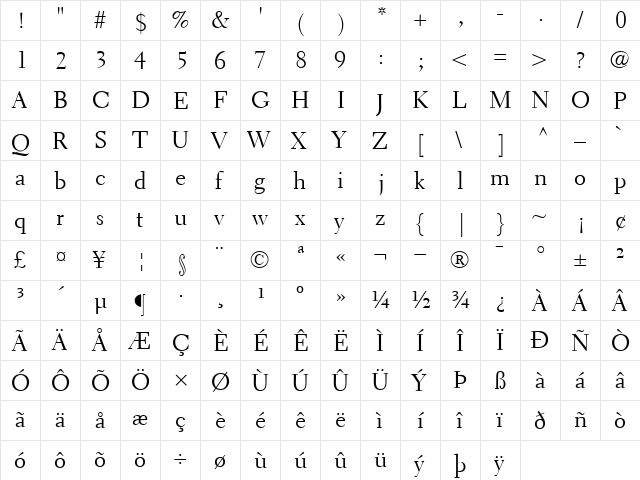
ElectraLH Roman
Design Context for ElectraLH Typeface
ElectraLH is a composed and adaptable typeface that performs quietly and consistently across a wide range of design contexts.